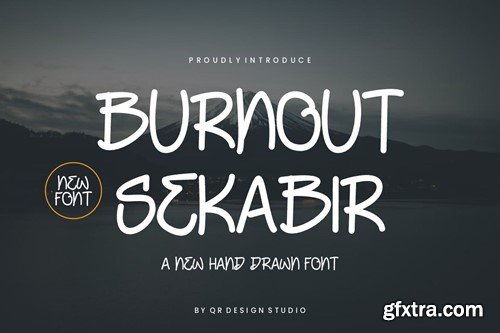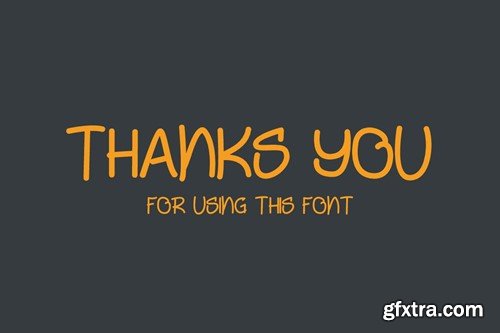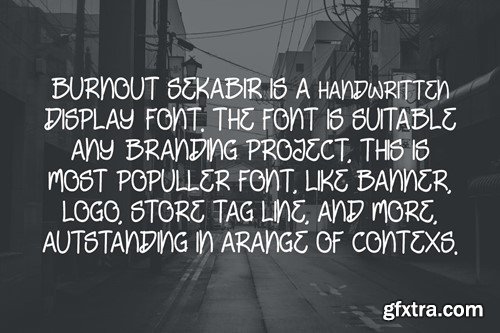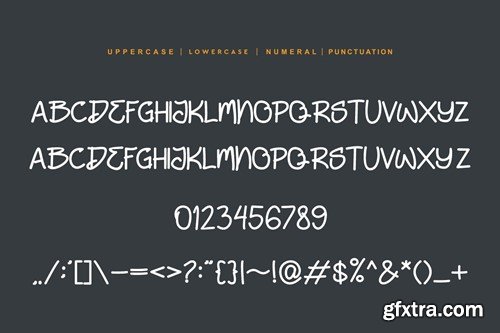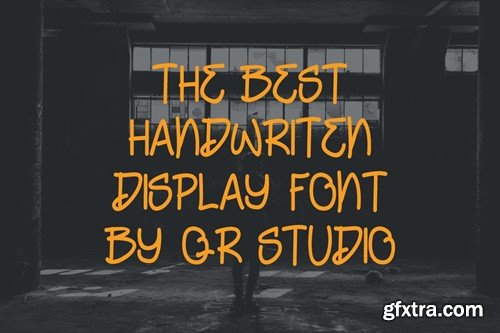
Burnout Sekabir - Handwritten Font CRYCMD7
Burnout Sekabir - Handwritten Font
Burnout Sekabir - Handwritten Font is a script and authentic display font. The font is suitable for any branding project like poster, logo, sport, and many more. Outstanding in a wide range of contexts.